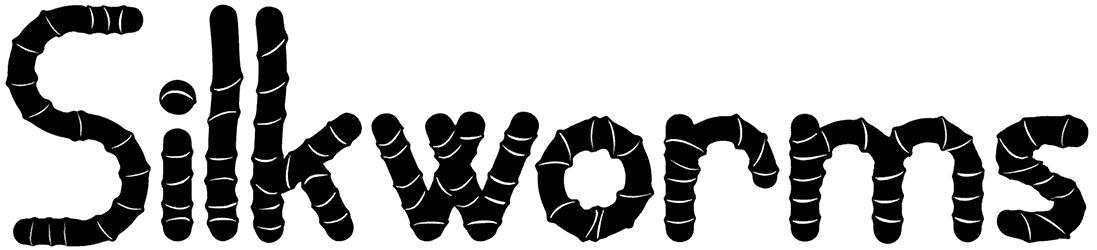
Silkworms Font
If you like to give your words an interesting and unique look, this bamboo font would be an ideal choice. Silkworms has a hand-painted letter style that can add a whimsical vibe to your words. There is no support for num…
If you like to give your words an interesting and unique look, this bamboo font would be an ideal choice. Silkworms has a hand-painted letter style that can add a whimsical vibe to your words. There is no support for numbers, but the Silkworms font can illustrate a lot of designs, such as posters, games, apparel, and so on.